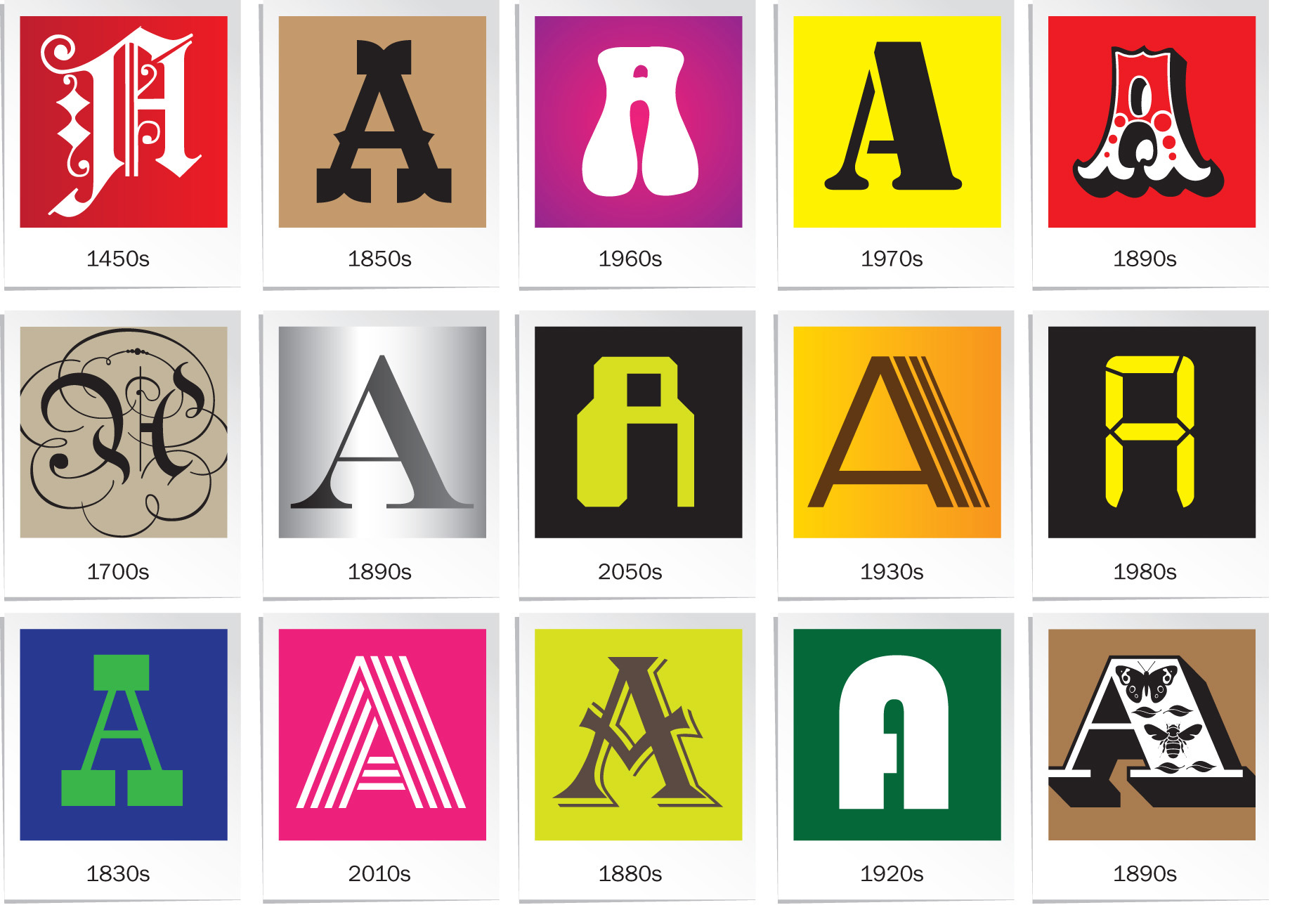
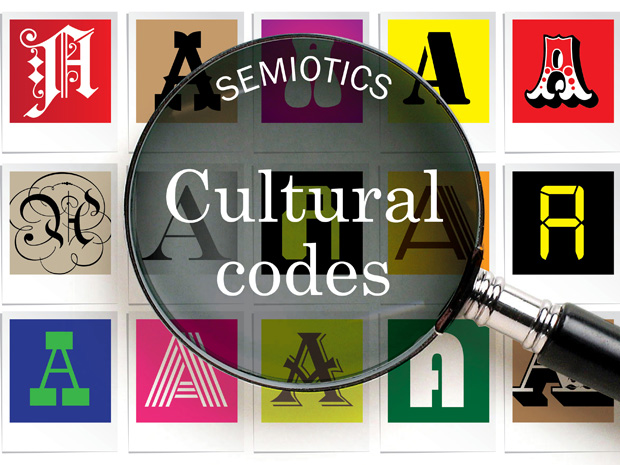
Typography is changing. Two decades dominated by sans serif typefaces are coming to an end, which type designer Charles Nix describes as “the waning end of a supertrend”. Are you (and your team) ready for this new and exciting typographic landscape?
It’s an exciting time to explore how type reflects culture right now. I was delighted to run online workshops recently with the inspiring type designers at international type foundry Monotype. This was such a brilliant opportunity for all of us to compare notes as we explored the themes and trends we’ve been seeing and chatted about what we think is coming next.
I think that looking at what’s changing typographically reveals the wider cultural themes of what people care about today. After a year when so much has changed, what things really matter to you today? What do you really value and/or what no longer seems important?
Are you and your team ready for the new typographic landscape and the fast-paced changes that are happening?
How to spot and decode typography trends
You can spot the trends and themes for yourself by keeping a visual diary and by following the people who are talking about what’s happening. This is a great way to future proof your typographic skills in a time of fast-paced change that trends, foresight and strategy company The Future Laboratory call “the great acceleration”.
- Think about what’s important to you, how might this have changed over the last year?
- When you look at what’s happening in the world, how are cultural attitudes changing?
- Take a look at the typographic landscape of the products and services you interact with today—can you see any styles or themes becoming prominent that you might not have seen a few years ago?
- When you think about these in context of changing cultural attitudes, do you think there are any links?
- Are there any companies or products that you think are doing this really well (or really badly)?
- How can you incorporated what you’ve observed into your own design process?
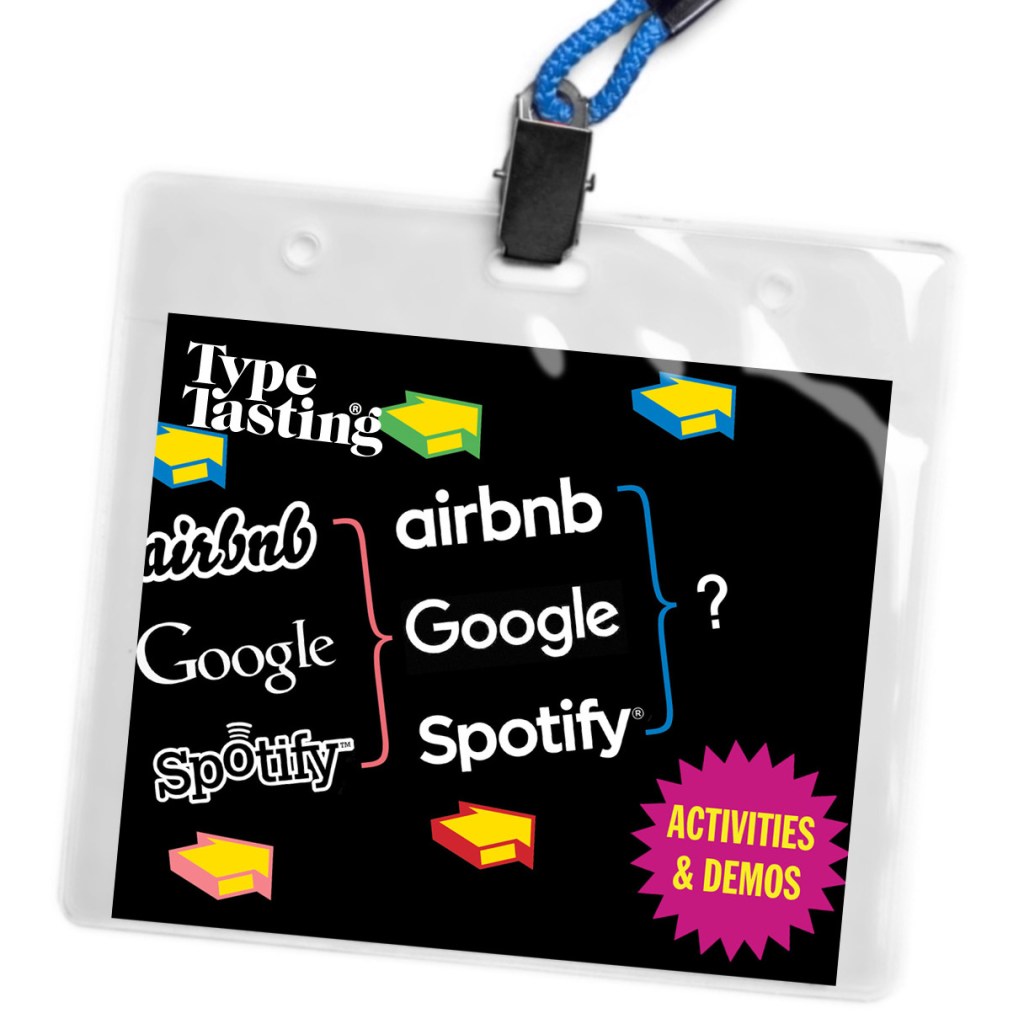
Decoding Type Trends (Semiotics) Masterclass
Discover how to decode the typography of everyday products. What does it reveal about changing moods and attitudes? How does it motivate your decisions? How can you future-proof your typographic choices? With a formula for making typographic choices that you can use today and into the future.